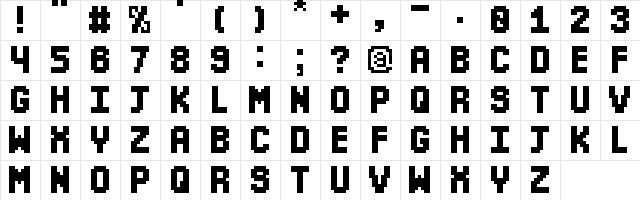
The Impostor Regular
| Designer | Sanjar |
The Impostor is a composed and adaptable typeface that performs quietly and consistently across a wide range of design contexts.